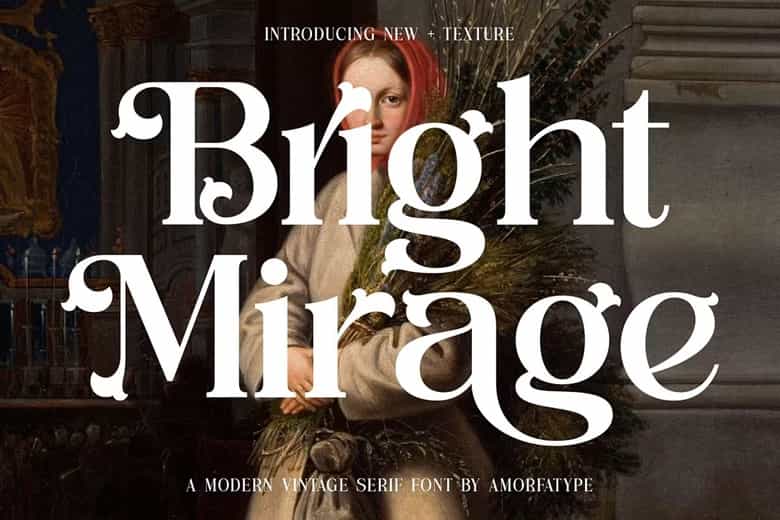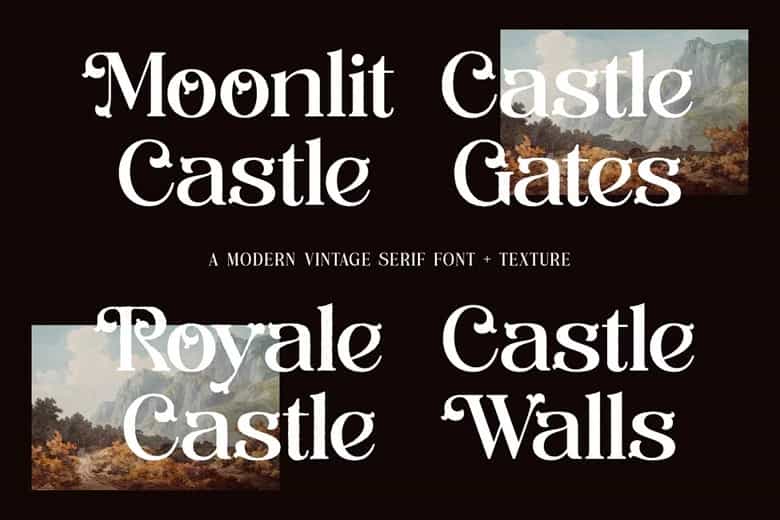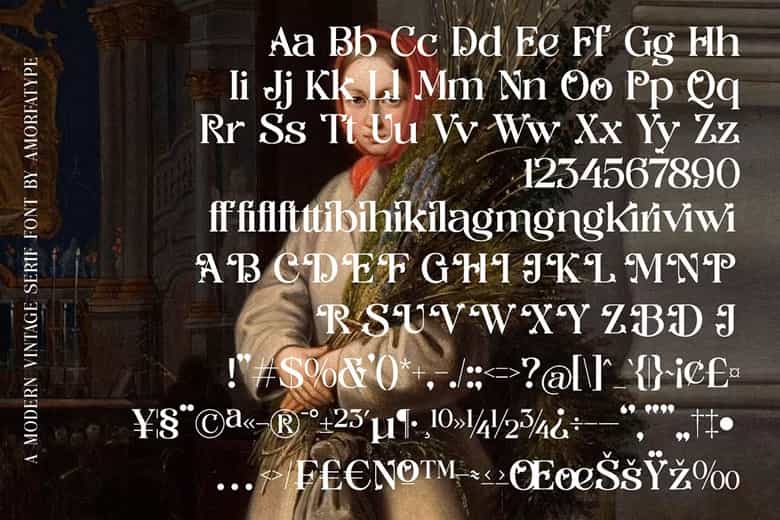
Bright Mirage exists as a modern vintage serif typeface which combines traditional elegance with present-day refinement. This typeface strikes a harmonious balance between formal shapes and elegant features to present an eternal sophisticated design. Bright Mirage features both powerful and refined design characteristics which makes it perfect for designs requiring vintage appeal combined with present-day applications.